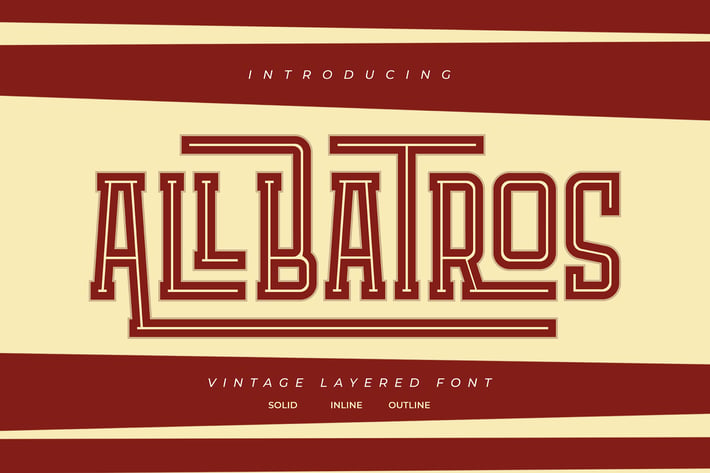
Allbatros | Vintage Layered Font
Allbatros | Vintage Layered Font with a calligraphy style, So beautiful on invitation like greeting cards, branding materials, business cards, quotes, posters, and more!